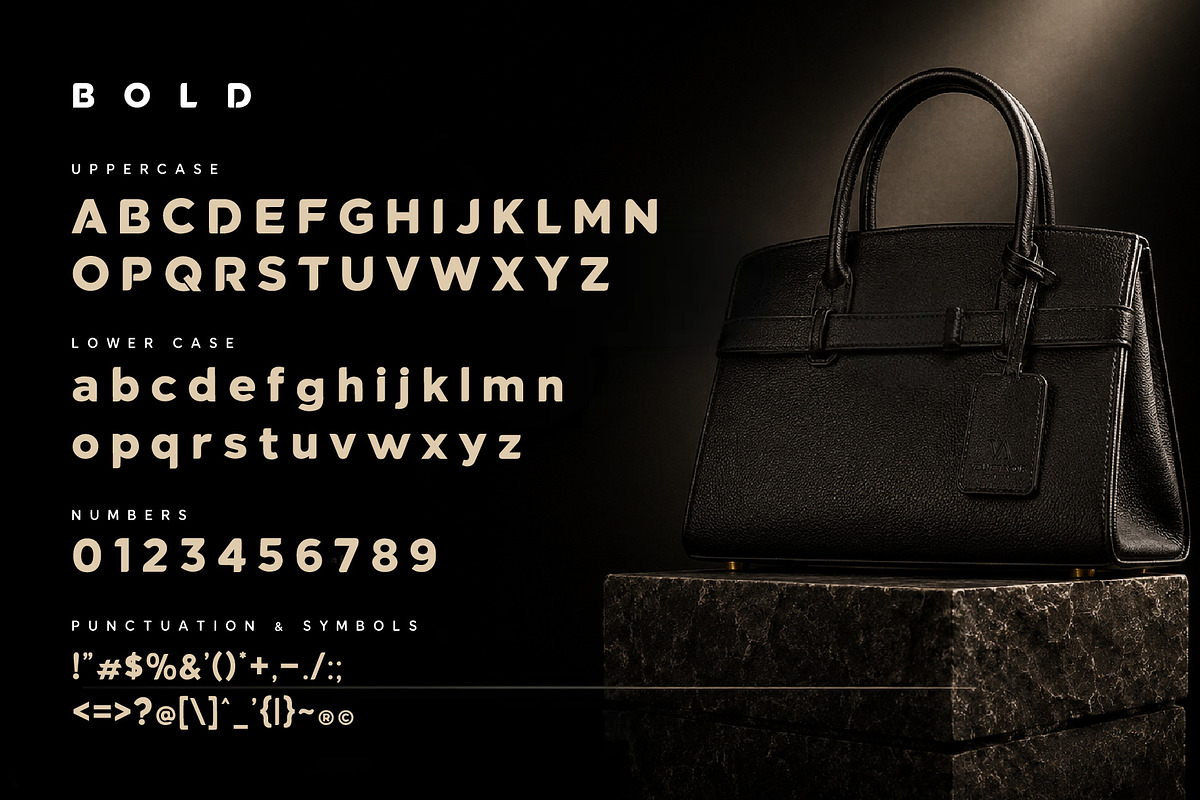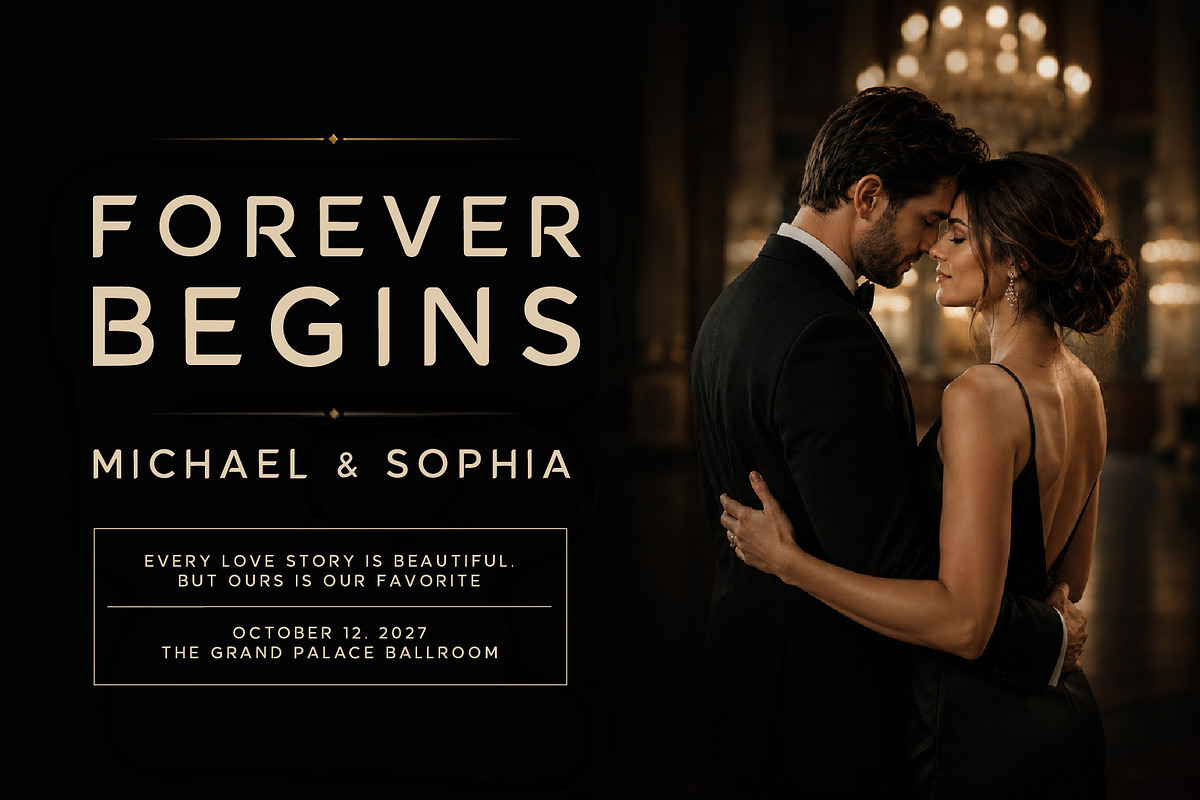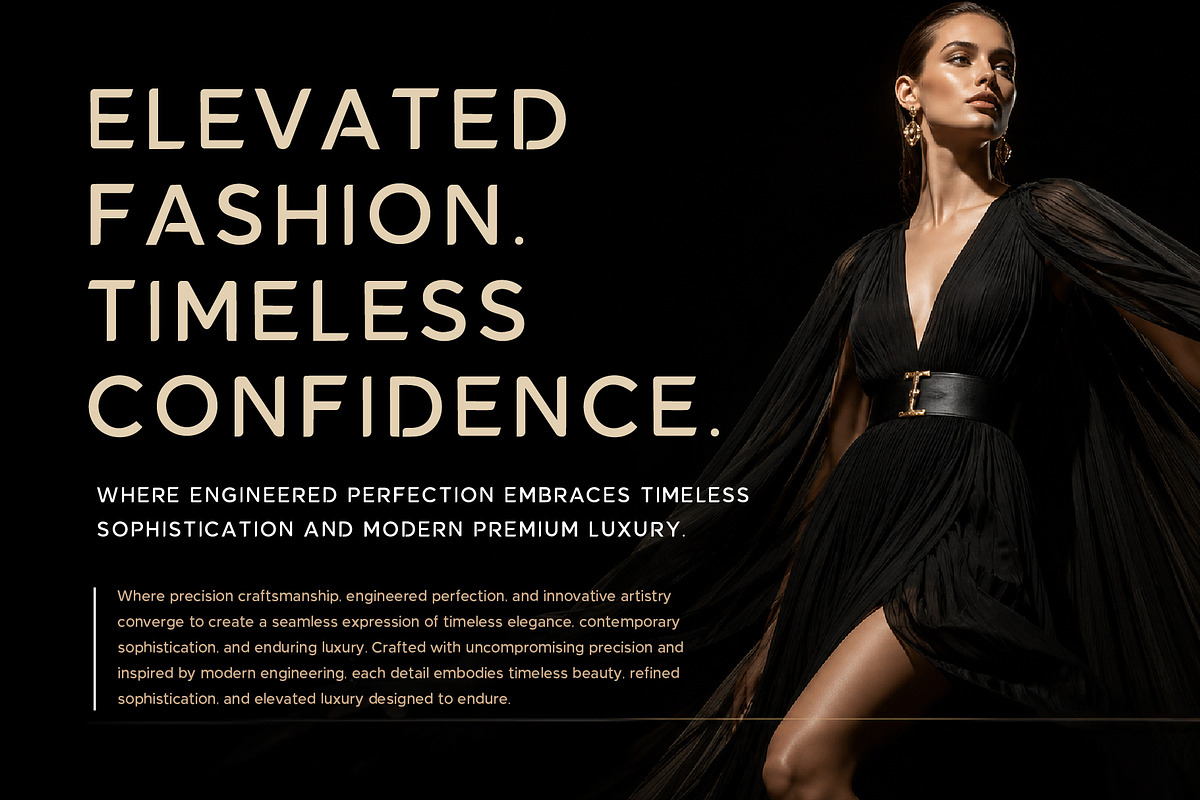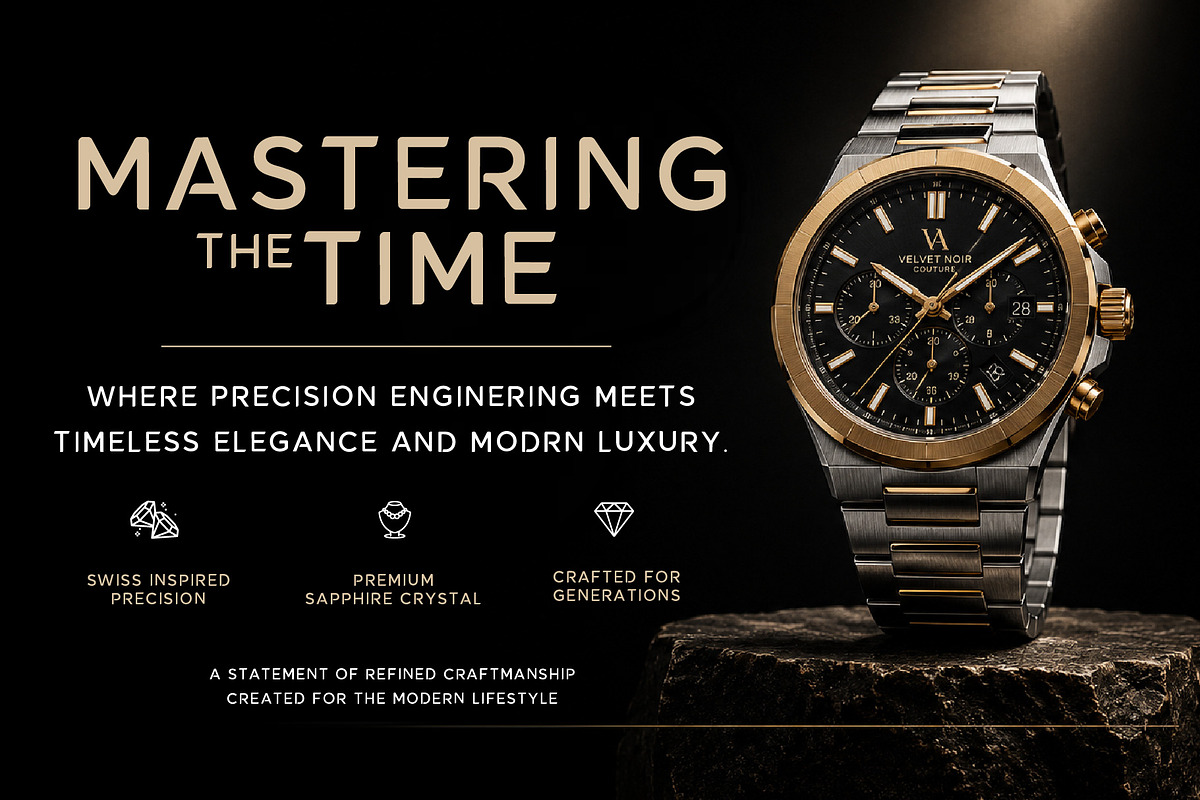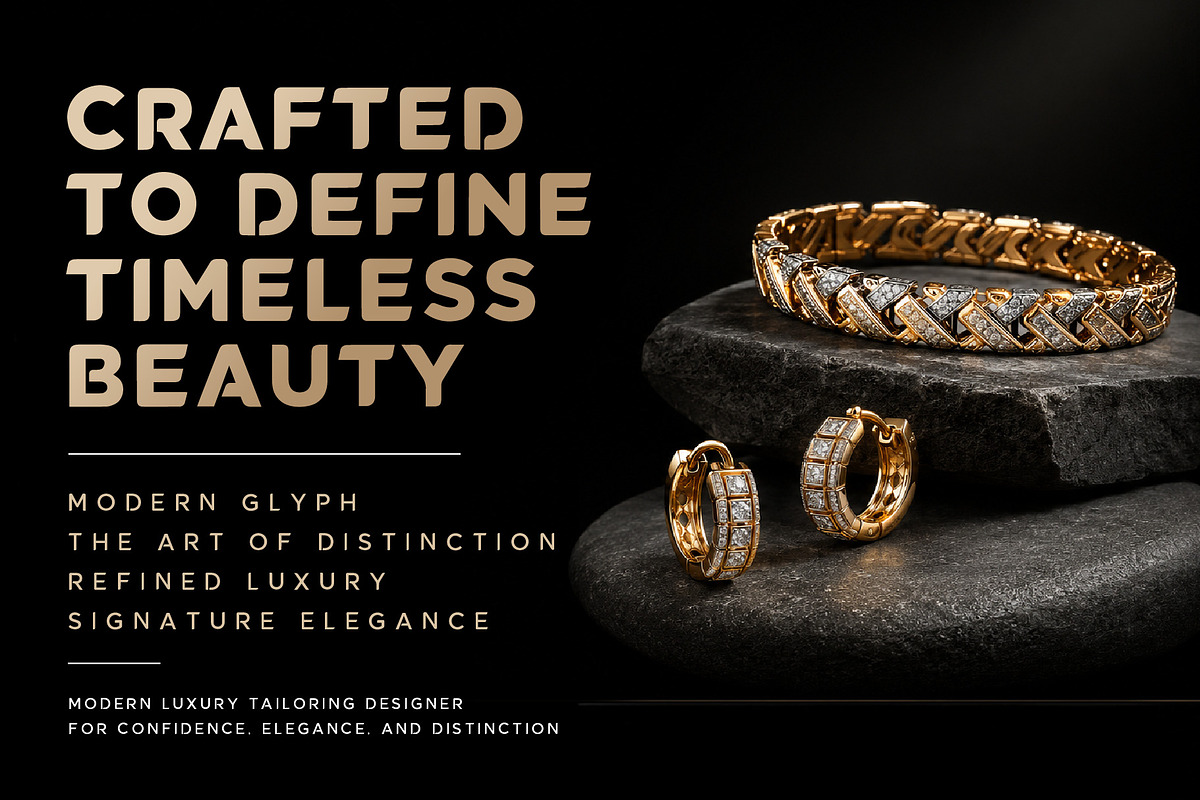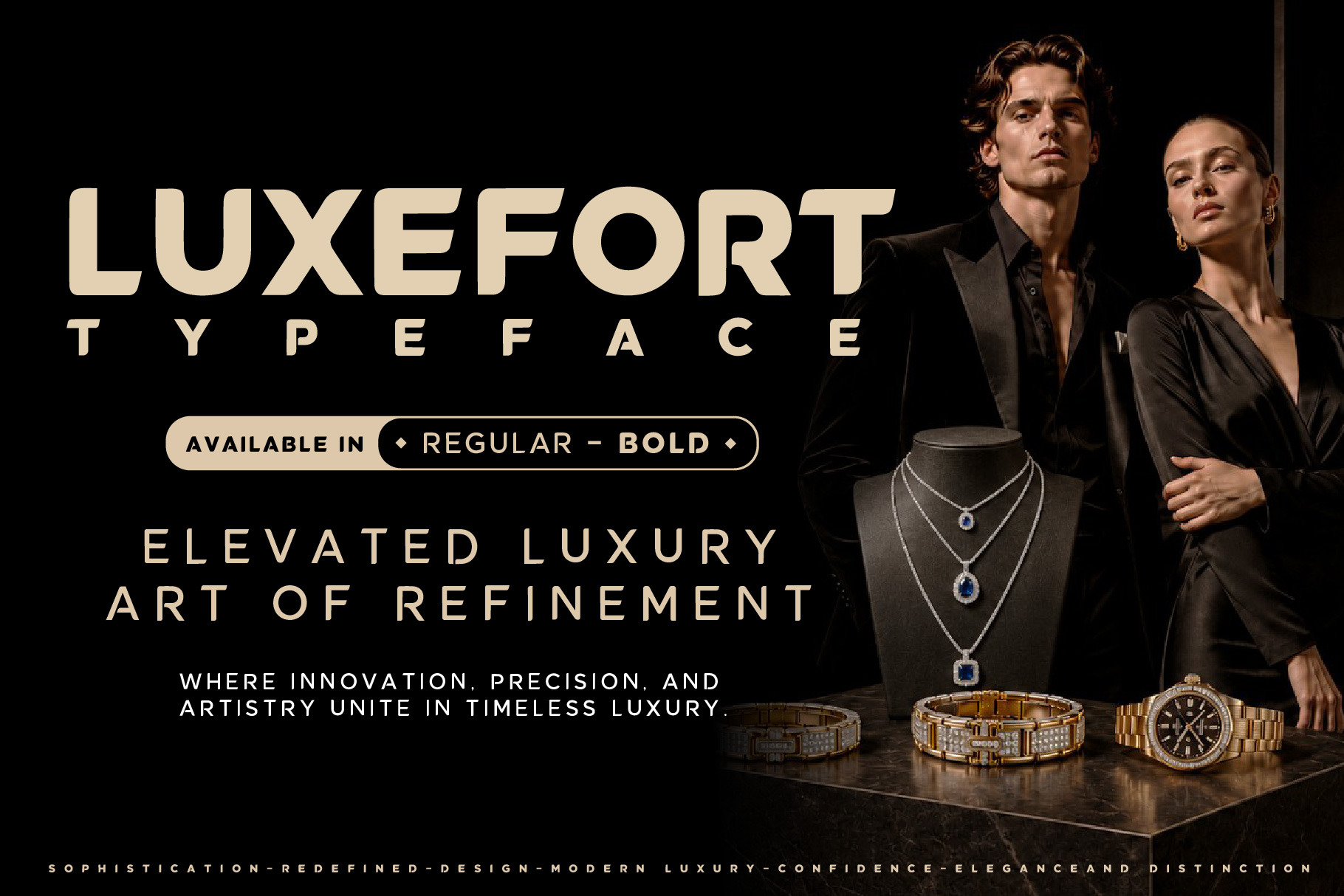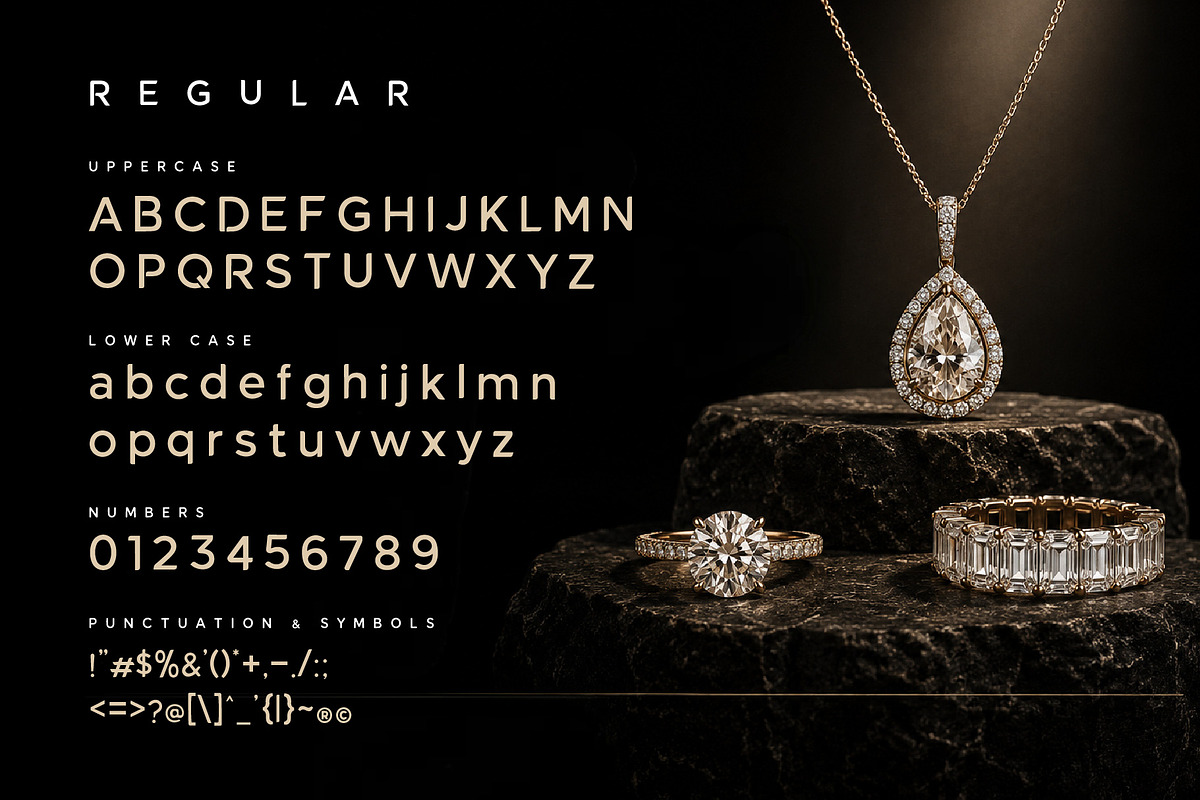
LUXEFORT – Luxury Premium Typeface
LUXEFORT is a luxury premium typeface designed to bring elegance, prestige, and sophistication to high-end branding projects. Featuring refined letterforms with a strong yet timeless presence, LUXEFORT is perfect for jewelry brands, luxury fashion labels, premium packaging, beauty products, watches, editorials, invitations, and upscale marketing materials.
Crafted for designers who seek a balance between modern luxury and classic refinement, this typeface delivers exceptional visual impact across both print and digital applications.
Elevate your brand with a typeface that embodies timeless elegance, premium craftsmanship, and modern luxury.